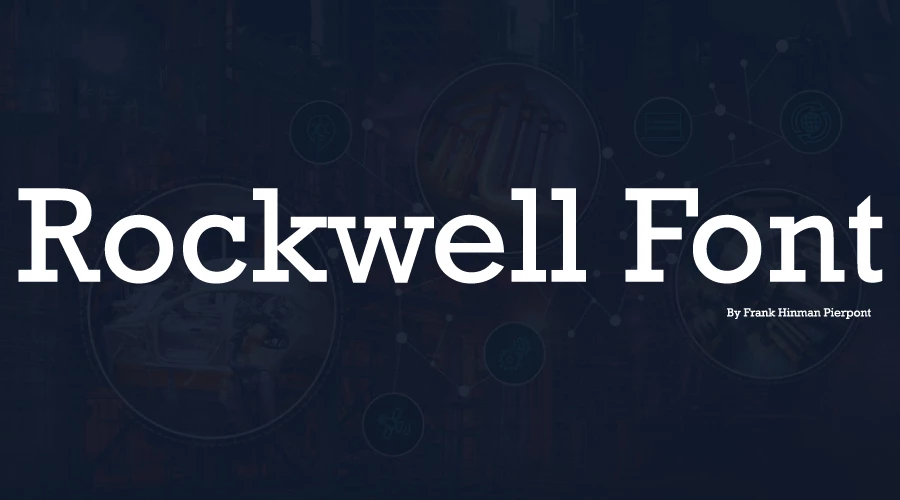
Rockwell is a Slab Serif typeface font. Monotype Corporation designed and released this font in 1934. Frank Hinman Pierpont was the supervisor of this font project. He was Monotype’s engineering manager. Rockwell is based on an earlier condensed slab serif design called Litho Antique.
Rockwell contains 9 styles with 255 glyphs. We are providing you the free version of Rockwell font. Memphis and Beton have the similar-looking typeface to Rockwell.
Rockwell font family is perfect for branding headlines and other display uses. Also, you can use it for any kind of textual content in both print and on-screen environments. Designers use this font a lot in their designing projects. You can easily create logos banners, posters, presentations, book covers, and many more. Rockwell is also suitable for official documents and other formal purposes.
Font Family
- Rockwell Light.
- Rockwell Light Italic.
- Rockwell Roman.
- Rockwell Bold.
- Rockwell Bold Italic.
- Rockwell Extra Bold.
- Rockwell Condensed.
- Rockwell Bold Condensed.
- Rockwell Italic.
Similar To Rockwell Font
- Memphis.
- Beton.
- Stymie.
- Emy Slab.
- EF Stratford.
What type of font is Rockwell?
Ans: Rockwell is a slab serif typeface font.
Is there any font similar to Rockwell in Google Fonts?
Ans: You can use Noto Serif instead of Rockwell in Google fonts.